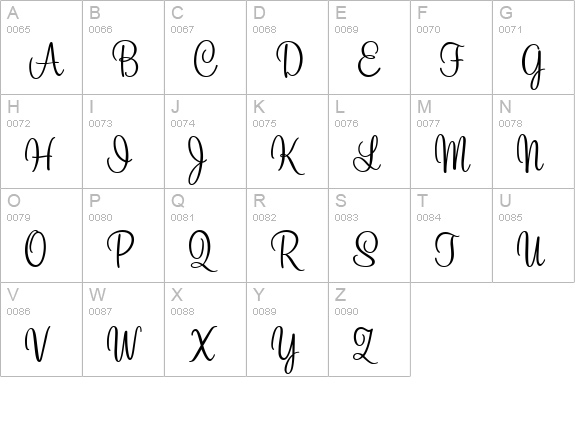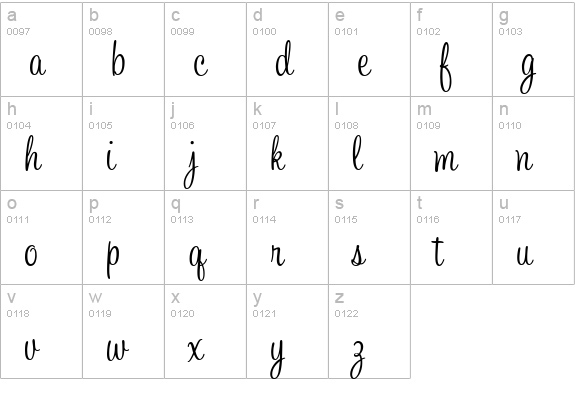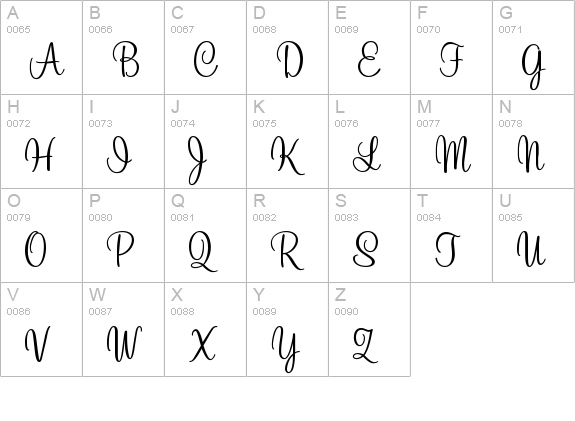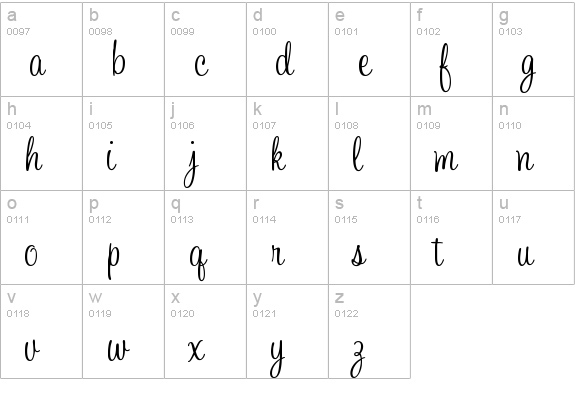
SweetheartScript is a charming and elegant handwritten font that exudes warmth and affection. With its delicate curves and playful flourishes, this font is perfect for adding a touch of sweetness to your projects. Whether you're designing wedding invitations, greeting cards, or branding materials, SweetheartScript will elevate your creations with its romantic and whimsical style. Best of all, SweetheartScript is available for free download at FontsMarket.com. You can easily access this lovely font and use it in your personal and commercial projects without any restrictions. Embrace the beauty of SweetheartScript and let its enchanting allure captivate your audience. Add a dash of love and creativity to your designs with this delightful font today.